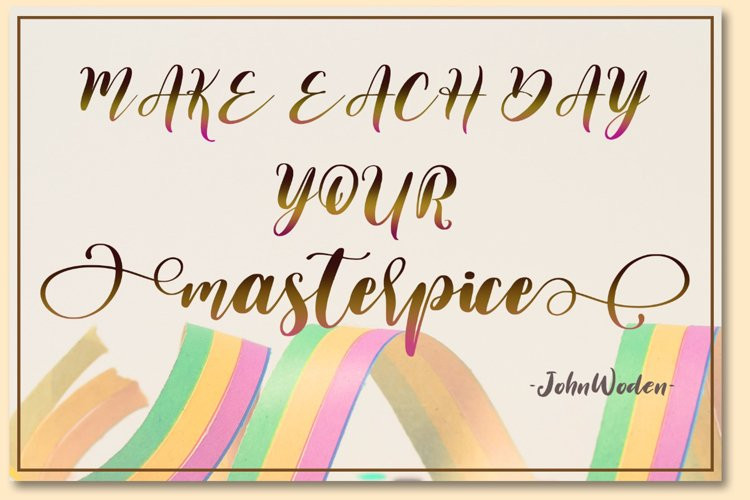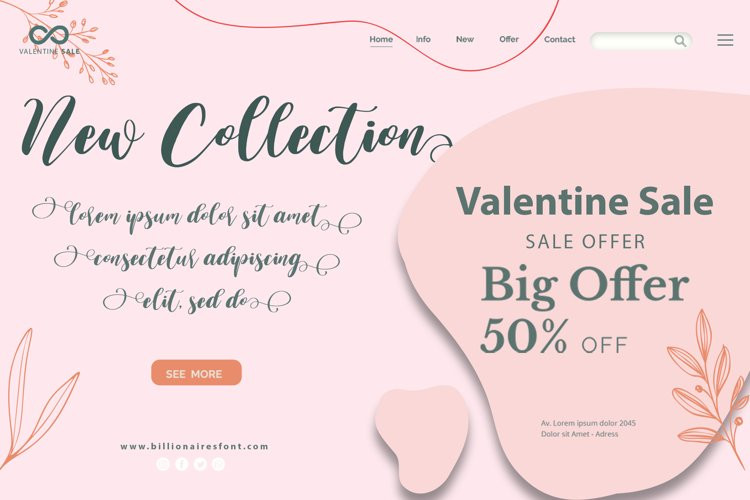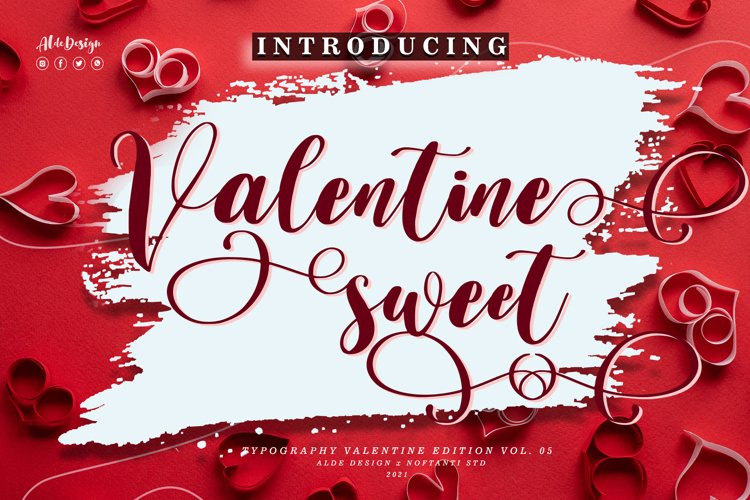
Valentine Sweet Font
Valentine Sweet is a cute handwritten font. It will elevate a wide range of design projects to the highest level, be it branding, headings, wedding designs, invitations, signatures, logos, labels, and much more!